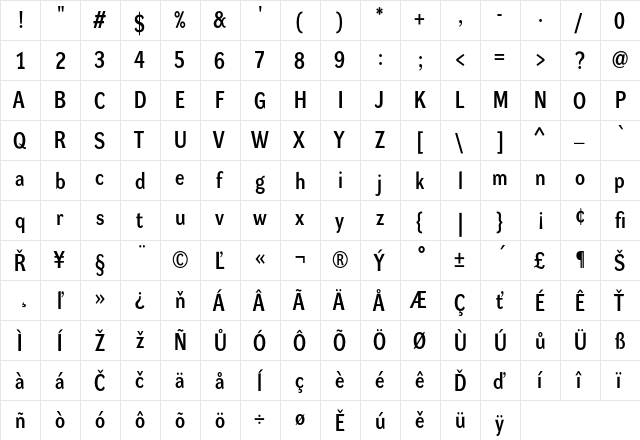
Dynamo LM Regular
Design Context for Dynamo LM Typeface
Dynamo LM offers clean, dependable letterforms without strong stylistic allegiance, making it a practical choice for designers who need flexibility.
Pro Tip: Pair Dynamo LM with a font of contrasting weight or personality to build a more expressive typographic hierarchy.